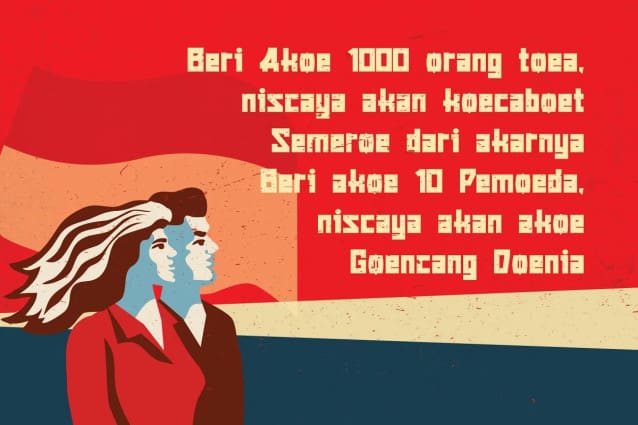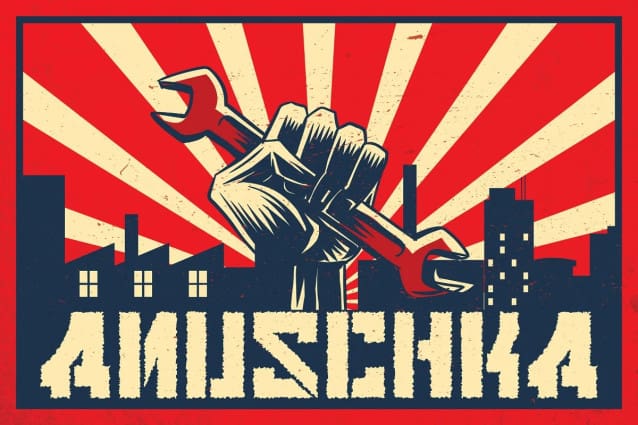
Anuschka Display Font
Anuschka Display Font – Faux Cyrillic Display Font. Faux Cyrillic, pseudo-Russian or faux Russian typography is the use of Cyrillic letters in Latin text, usually to evoke the Soviet Union or Russia, though it may be used in other contexts as well. It is a common Western trope used in book covers, film titles, comic book lettering, artwork for computer games, or product packaging which are set in or wish to evoke Eastern Europe, the Soviet Union, or Russia. A typeface designed to emulate Cyrillic is classed as an ethnic typeface.
ANUSCHKA DISPLAY FONT came with that protest and propaganda vibe. It’s contain a complete Simple Latin Glyphs, with extra ligatures, D-Ligature, Stylistic set for the main character to make it stencil look and distressed look.